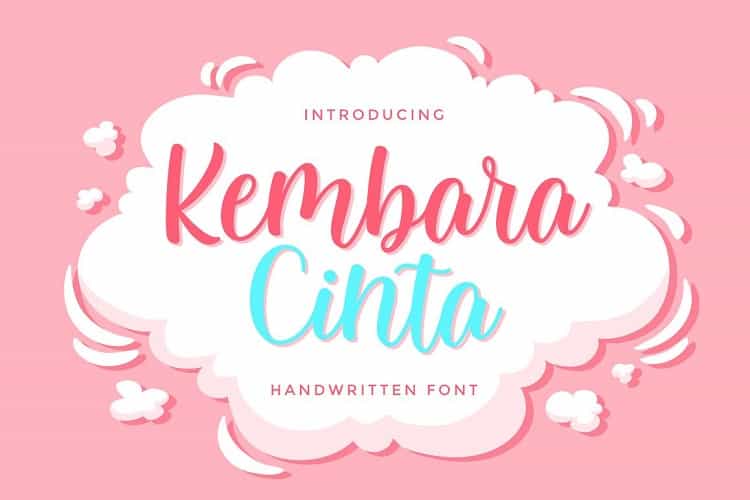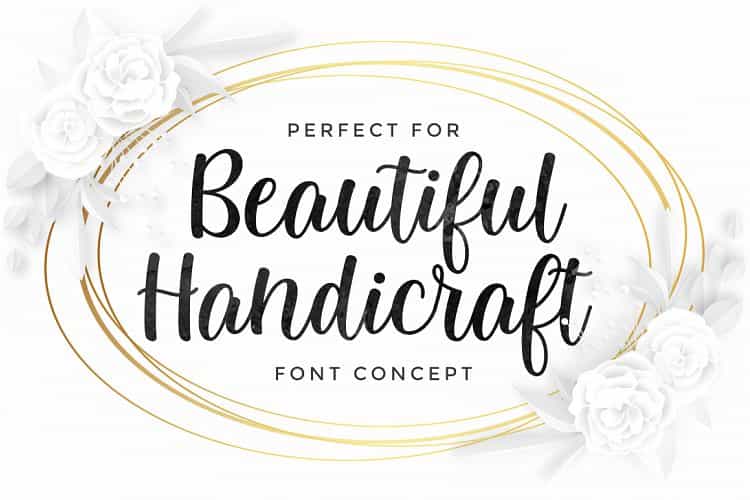
Discover Kembara Cinta Script Font, part of the Calligraphy Handwritten collection—a versatile and unique font perfect for adding a personal touch to your projects. Download it for free and enjoy crafting designs with style, from invitations to social media posts. This font is available exclusively for personal use, giving you the freedom to create without limits. Unlock your creativity with Kembara Cinta Script Font today!
Kembara Cinta – a new fresh & modern hand-lettered calligraphy style with decorative characters and a dancing baseline! This is the kind of invitation that can be used on greeting cards, branding materials, business cards, quotes construction and other design concepts.